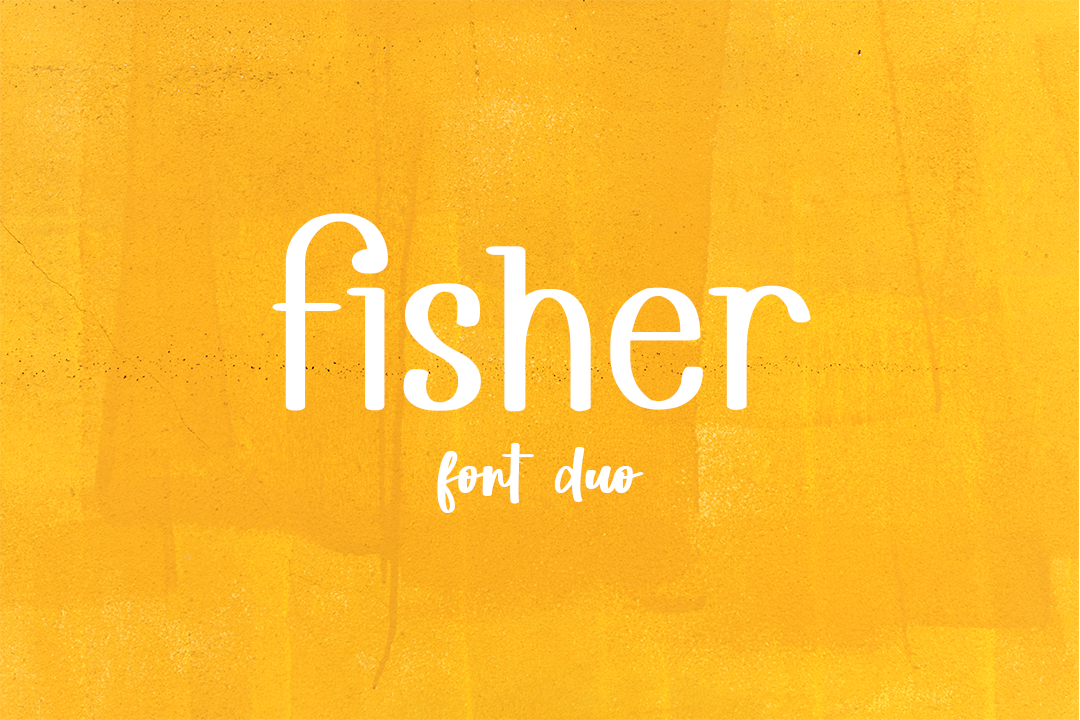
Fisher | Font Duo
Hi! Introducing my newest font called Fisher.
Fisher is a lovely duo font (sans serif and script). This adaptable font will look great on a variety of design ideas. It will add a fun and friendly touch to each of your projects!